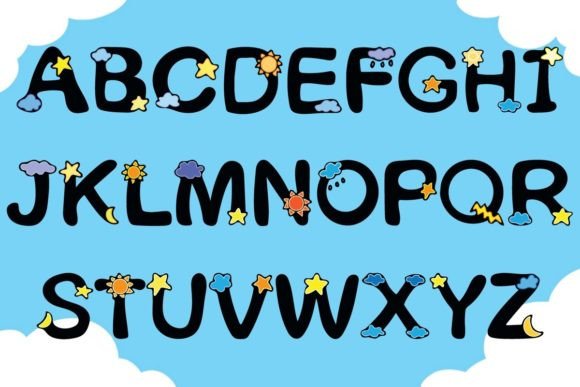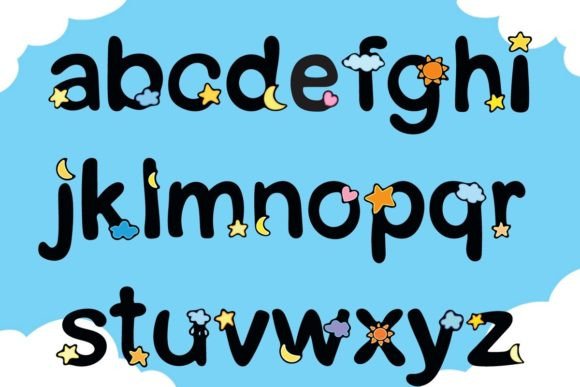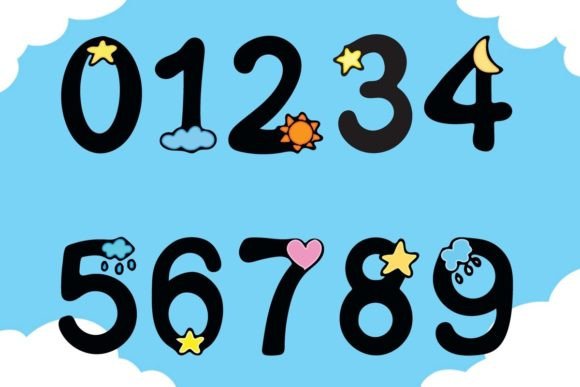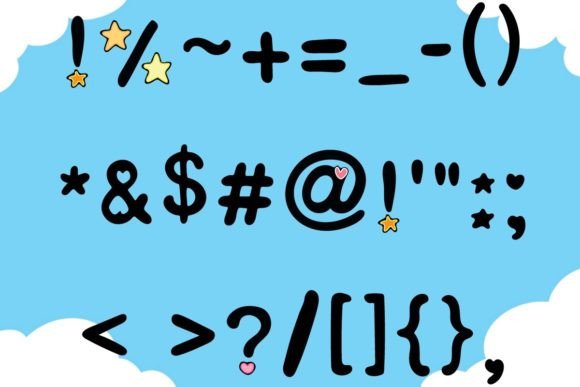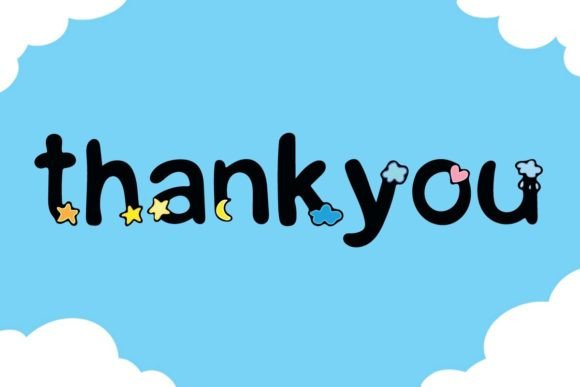
Introducing Canopy Font: Add a Touch of Freshness to Your Designs
Are you looking for a font that can bring a sense of elegance and refinement to your designs? Look no further than Canopy Font, a cute and stylish font that’s perfect for adding a touch of freshness to any project. With its graceful and fluid letterforms, Canopy Font is ideal for designers and crafters who want to create beautiful and eye-catching designs.
What Makes Canopy Font Special?
Canopy Font is a unique and versatile font that’s designed to add a touch of sophistication to any design. Its fluid letterforms and elegant lines make it perfect for a wide range of applications, from branding and invitations to editorial design and more. Whether you’re creating a logo, brochure, or social media graphic, Canopy Font is the perfect choice.
Key Features of Canopy Font
- Cute and Stylish: Canopy Font is a modern and trendy font that’s perfect for designers who want to add a touch of personality to their designs.
- Graceful and Fluid Letterforms: The font’s elegant lines and fluid letterforms make it perfect for creating beautiful and eye-catching designs.
- Color Font: Canopy Font is a Color Font (bitmap font) that offers a wide range of colors and design possibilities.
Use Canopy Font for a Variety of Design Projects
Canopy Font is a versatile font that can be used for a wide range of design projects, including:
- Branding: Use Canopy Font to create a unique and memorable logo that reflects your brand’s personality.
- Invitations: Add a touch of elegance and sophistication to your invitations with Canopy Font.
- Editorial Design: Use Canopy Font to create beautiful and eye-catching editorial designs, such as magazines, brochures, and more.
- Social Media Graphics: Add a touch of personality to your social media graphics with Canopy Font.
Why Choose Canopy Font?
There are many reasons why designers and crafters choose Canopy Font for their design projects. Here are just a few:
- Unique and Versatile: Canopy Font is a unique and versatile font that can be used for a wide range of design projects.
- Elegant and Refined: The font’s elegant lines and fluid letterforms make it perfect for creating beautiful and eye-catching designs.
| Font Name | Canopy Font |
| Author | Jan Jao studio |